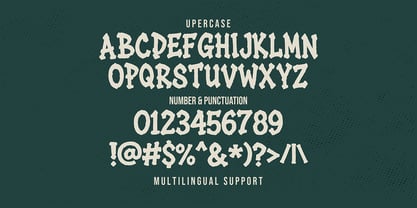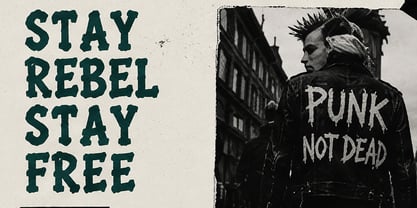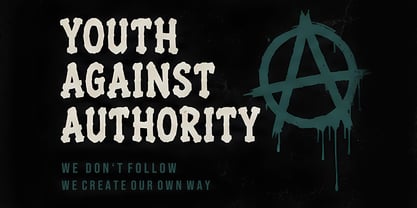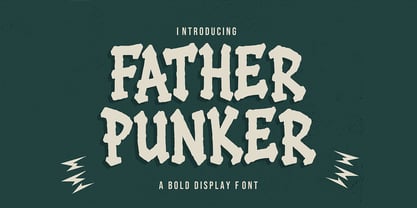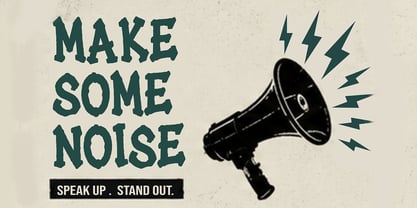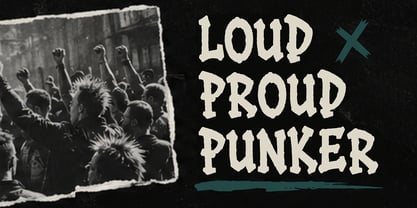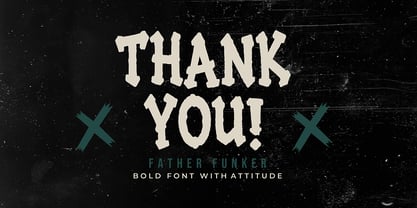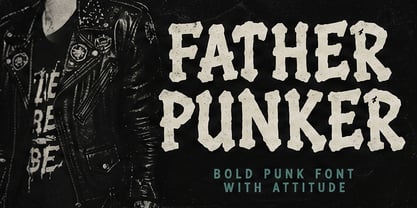
Father Punker is a bold punk-inspired display font created with raw underground energy, distressed handcrafted aesthetics, and strong rebellious personality. Inspired by vintage punk posters, alternative music culture, underground zines, tattoo art, garage band visuals, and gritty street typography, Father Punker delivers powerful display typography filled with expressive attitude.
The font combines chunky bold forms with rough handcrafted details to create typography that feels authentic, energetic, and visually unforgettable. Every character carries imperfect texture and vintage-inspired personality, helping compositions feel more alive and emotionally expressive.
Father Punker is suitable for:
Punk Posters
Music Artwork
Album Covers
Streetwear Branding
Alternative Fashion
Gaming Graphics
Tattoo Designs
Underground Promotions
Event Flyers
Social Media Content
Skate Graphics
Merchandise Design
Creative Packaging
Editorial Headlines
Retro Branding
Features
Uppercase Characters
Lowercase Characters
Numbers & Punctuation
Multilingual Support
Punk Display Style
Distressed Handcrafted Shapes
Vintage Underground Aesthetic
Rough Typography Character
Bold Readability
Alternative Visual Identity
The strong display structure allows Father Punker to perform beautifully in oversized headlines, promotional graphics, and bold branding systems. The rugged distressed forms help typography stand out with strong visual personality while remaining readable and versatile.
Inspired by classic punk rock culture and underground creative movements, Father Punker captures the rebellious spirit of handmade poster art and DIY visual expression. Its rough handcrafted texture creates authentic vintage atmosphere perfect for edgy creative projects.
The font works exceptionally well for music-related visuals, streetwear graphics, alternative branding, tattoo-inspired artwork, and retro editorial layouts. The bold chunky forms create strong visual hierarchy while the distressed details add expressive artistic character.
Father Punker is ideal for:
Band Posters
Rock Merchandise
Vintage Graphics
Skateboard Designs
Alternative Campaigns
Gaming Visuals
Underground Branding
Concert Promotions
Punk Editorials
Creative Headlines
The multilingual support allows broader creative communication across multiple languages, while punctuation and number characters complete professional typography systems for branding and promotional use.
The handcrafted imperfections and rugged silhouette help typography feel more organic and emotionally expressive. Whether combined with grunge textures, monochrome layouts, retro visuals, or bold color palettes, Father Punker maintains strong rebellious personality and visual impact.
Its vintage punk aesthetic makes the font highly suitable for creators looking for typography with underground attitude, alternative spirit, and handcrafted authenticity. The expressive forms help projects feel more dynamic, memorable, and artistically raw.
Father Punker transforms simple text into powerful visual statements inspired by punk rock energy, rebellious design culture, underground creativity, and vintage display typography.
Perfect for designers seeking bold alternative typography with gritty personality, retro punk aesthetics, and strong visual presence.